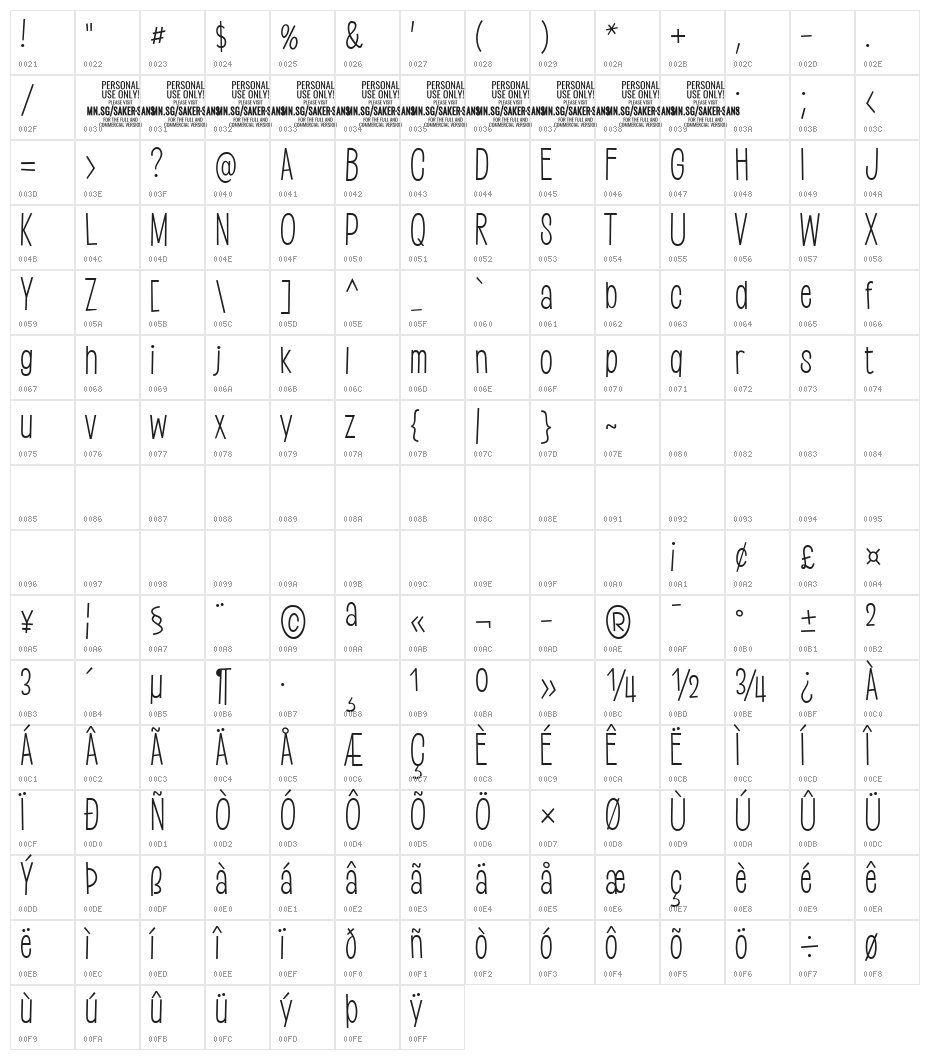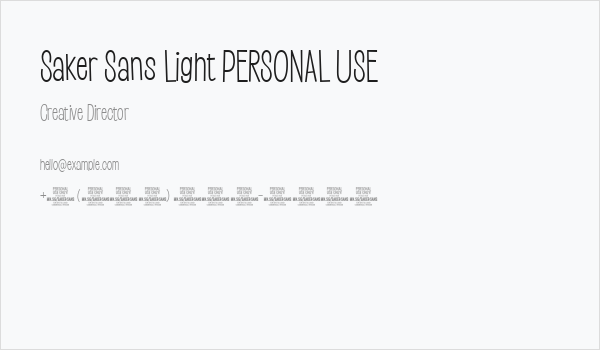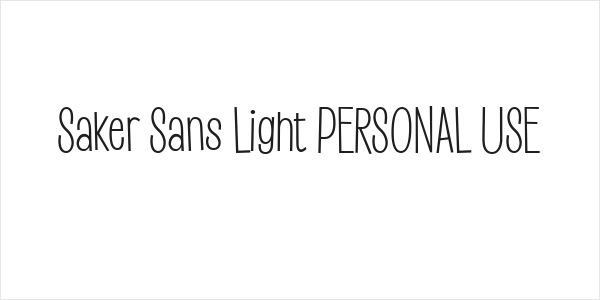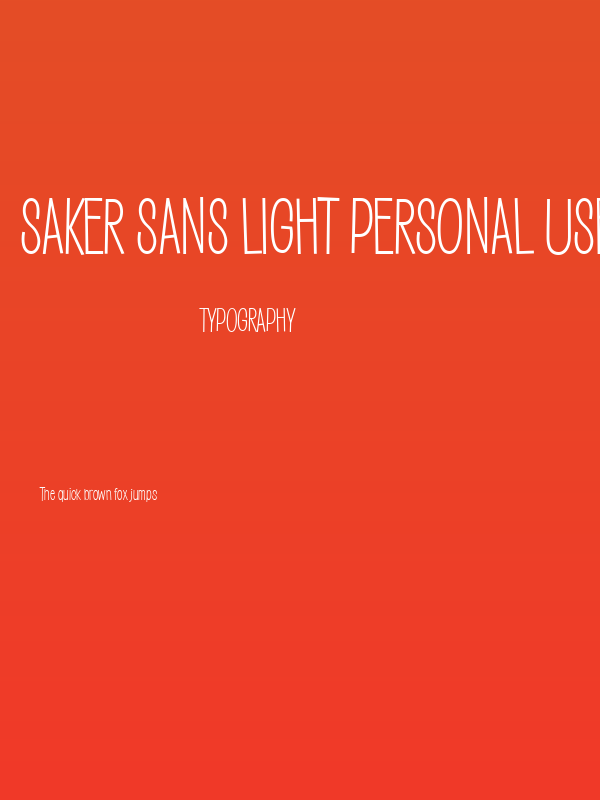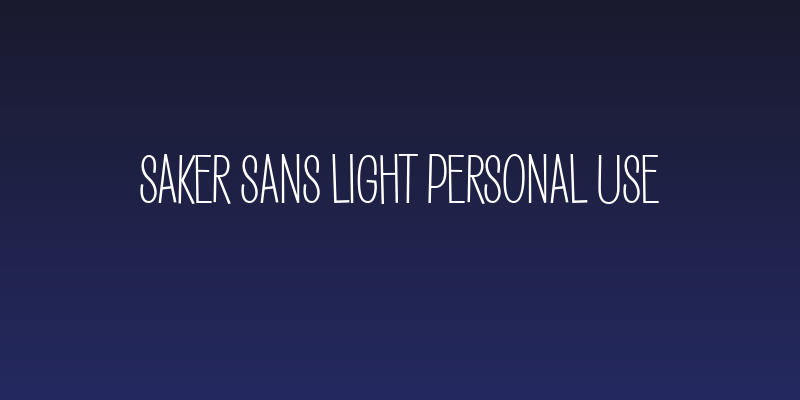
Saker Sans Light PERSONAL USE Font
Saker Sans Light PERSONAL USE Description
This font features a clean and modern sans-serif style with a light weight, making it ideal for minimalist design projects. The characters are tall and narrow, providing a sleek and elegant appearance. The uppercase and lowercase letters maintain a consistent height, contributing to a uniform look. The numerals and special characters are designed to match the overall aesthetic, ensuring a cohesive visual experience. The font's simplicity and clarity make it suitable for a variety of applications, from digital interfaces to print media.
Proposed ProjectsIdeal for branding, editorial design, websites, and mobile apps.